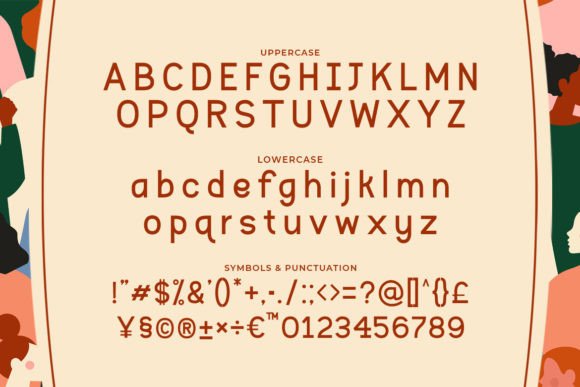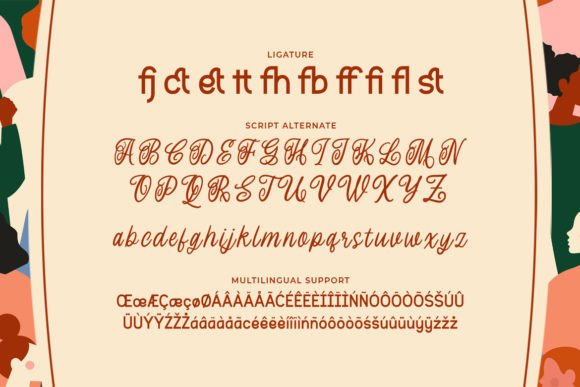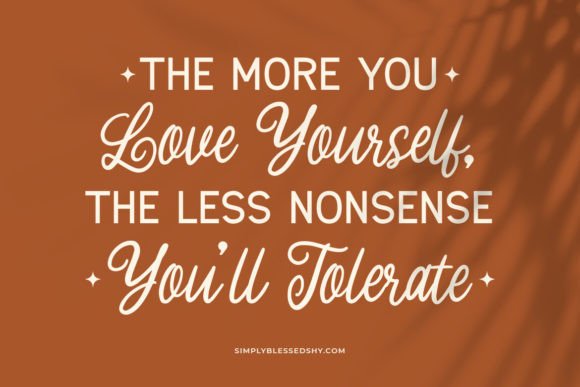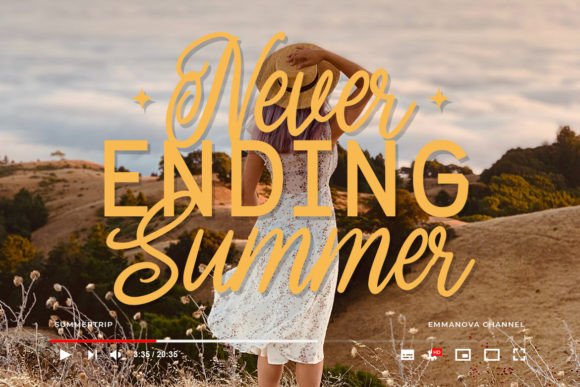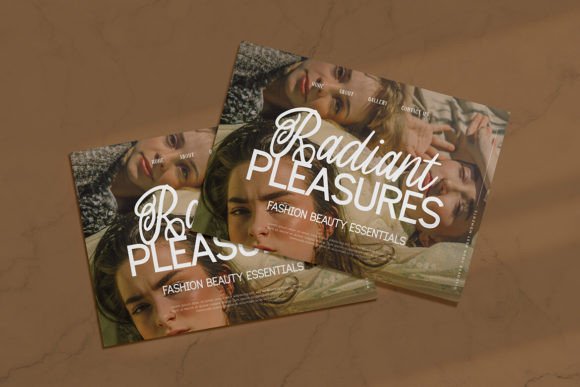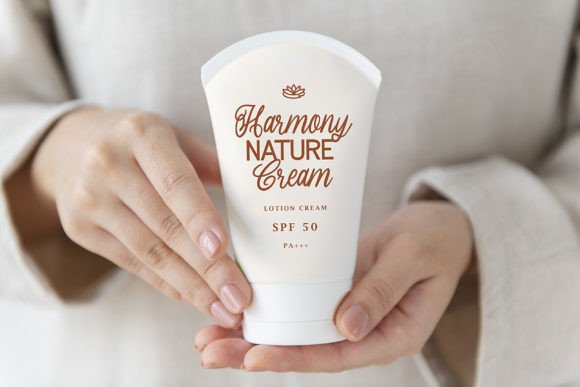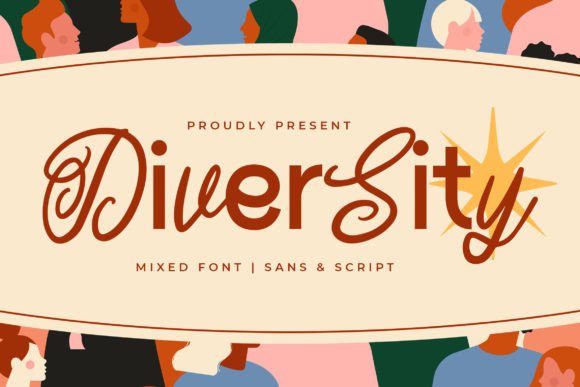
Introducing Diversity Font: The Ultimate Blend of Sans-Serif and Script Elements
In the world of typography, diversity is key to creating visually engaging and dynamic designs. For designers and crafters, finding the perfect font that combines versatility and creativity can be a daunting task. However, with the introduction of “Diversity” font, the game has changed. This unique font seamlessly blends sans-serif and script elements, offering a harmonious combination of clean lines and hand-drawn script that celebrates the beauty of diversity in typography.
The Birth of Diversity Font
The “Diversity” font is a result of meticulous craftsmanship and a deep understanding of typographic needs. Its creators aimed to design a font that not only stands out but also offers endless creative possibilities. By merging the cleanliness of sans-serif fonts with the personal touch of script fonts, “Diversity” provides a fresh and innovative approach to typography.
Key Features of Diversity Font
• Versatility: “Diversity” font is designed to be versatile, making it suitable for a wide range of projects, from branding materials and invitations to packaging and social media graphics.
• Unique Blend: The font’s unique blend of sans-serif and script elements allows for a dynamic and visually engaging design.
• Ease of Use: With “Diversity,” you can easily mix and match styles to create a cohesive look that reflects your brand’s personality.
• Expressive: The diverse range of letterforms in “Diversity” font empowers you to express your creativity and personality in new and exciting ways.
Applications of Diversity Font
The applications of “Diversity” font are vast and varied. Here are a few examples of how you can use this versatile font:
• Branding Materials: Create a lasting impression with your logo, business cards, and letterheads that reflect your brand’s unique personality.
• Invitations: Make your invitations stand out with a beautiful blend of sans-serif and script elements that set the tone for your event.
• Packaging: Elevate your product packaging with a font that combines style and flair, making your products more appealing to customers.
• Social Media Graphics: Enhance your social media presence with engaging graphics that showcase your brand’s creativity and personality.
Why Choose Diversity Font?
In a world where typography plays a crucial role in design, “Diversity” font offers a unique solution for designers and crafters looking for a versatile and creative font. Here are a few reasons why you should choose “Diversity” font:
• Stand Out: With its unique blend of sans-serif and script elements, “Diversity” font helps your designs stand out in a crowded market.
• Time-Saving: The font’s versatility saves you time and effort, as you can use it for a wide range of projects without needing to switch fonts.
• Easy to Use: “Diversity” font is easy to use, even for those who are new to design, making it a great addition to your font library.
In conclusion, “Diversity” font is a game-changer for designers and crafters looking for a versatile and creative font. Its unique blend of sans-serif and script elements offers endless possibilities for dynamic and visually engaging designs. Whether you’re working on branding materials, invitations, packaging, or social media graphics, “Diversity” font is the perfect choice. Step into the world of typographic diversity with “Diversity” and let your designs shine with its unique blend of styles.
Ready to experience the power of “Diversity” font? Download it today and discover a world of creative possibilities. With “Diversity,” you’ll be able to:
• Create visually engaging and dynamic designs
• Express your creativity and personality in new and exciting ways
• Easily mix and match styles to create a cohesive look
• Elevate your projects with a unique and versatile font